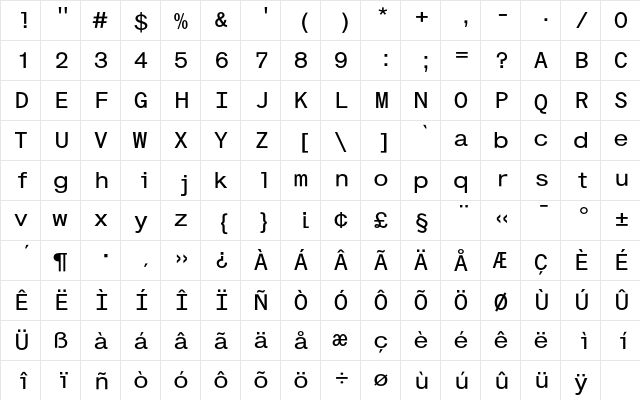
CashEF Monospace
Design Context for CashEF Typeface
CashEF brings the precise, column-aligned rhythm of monospaced typography to designs that value technical clarity and systematic order.
Well-suited to data-driven dashboards, coding tutorials, and any design that wants to reference the world of programming.
Pro Tip: Use CashEF with slightly increased line-height for extended reading — fixed-width spacing can feel dense in longer passages without extra breathing room.